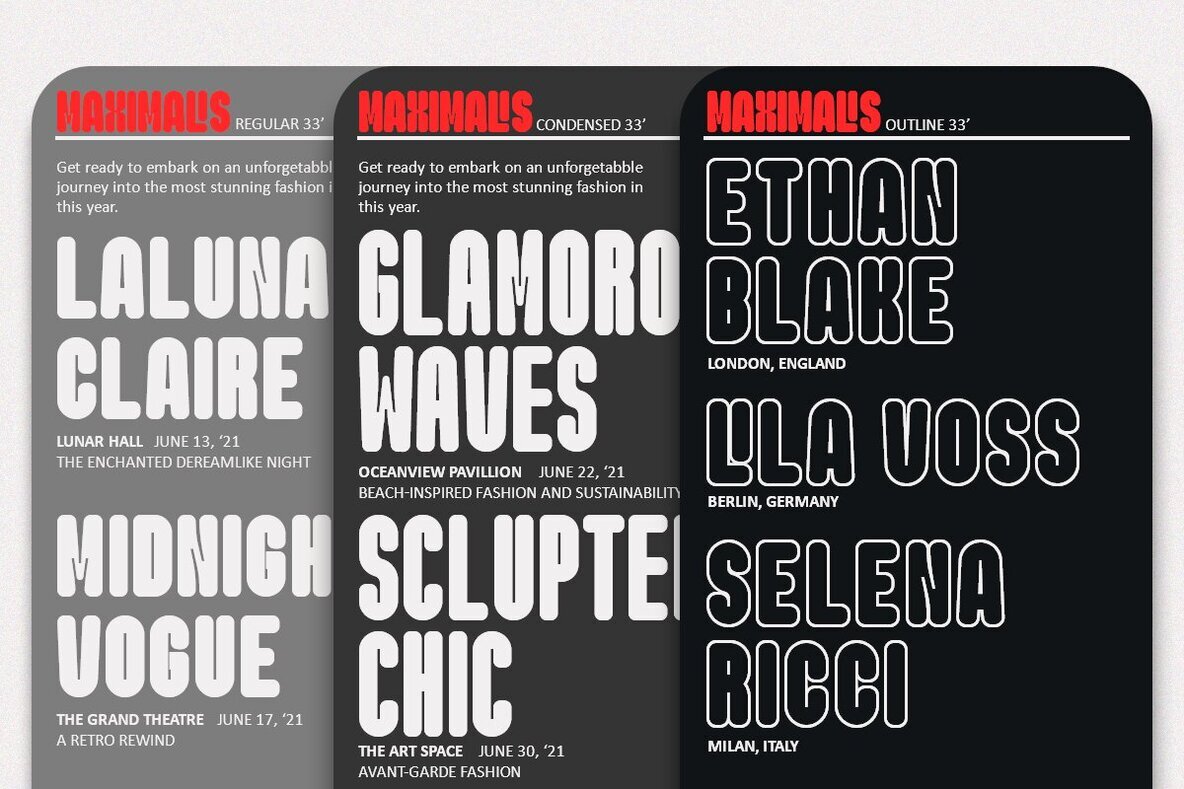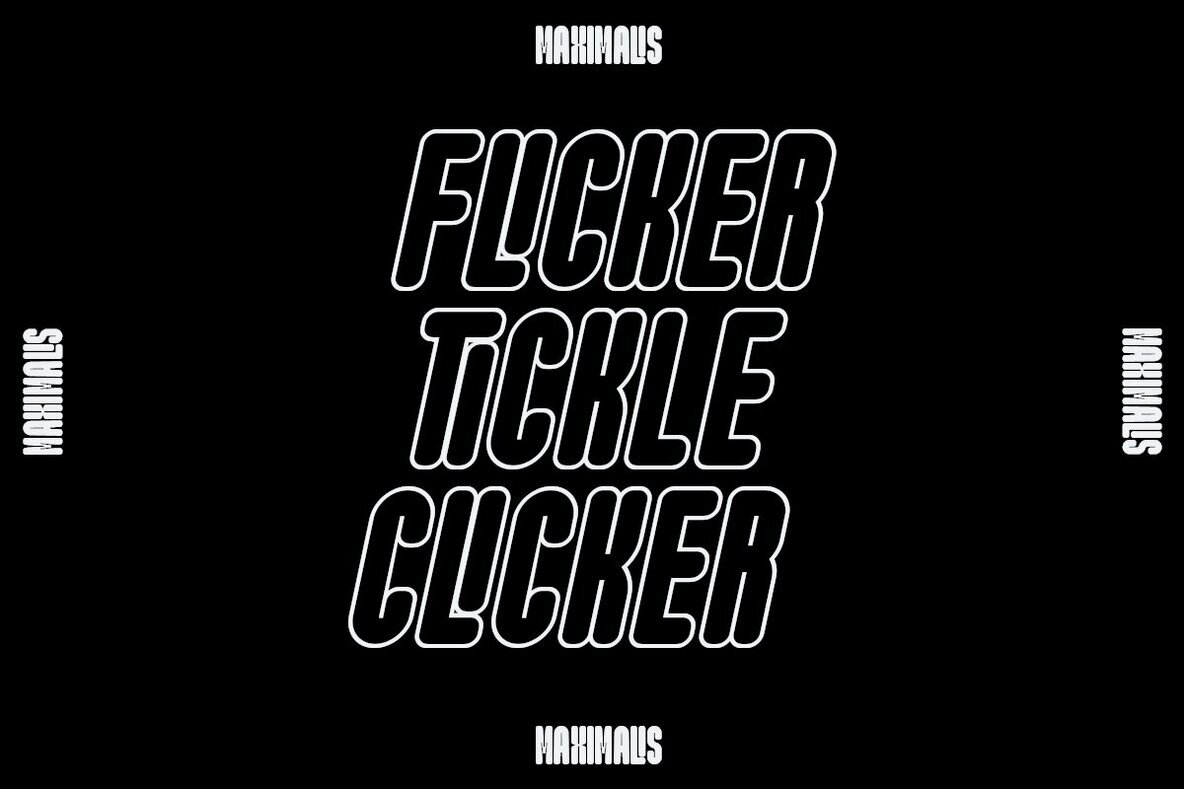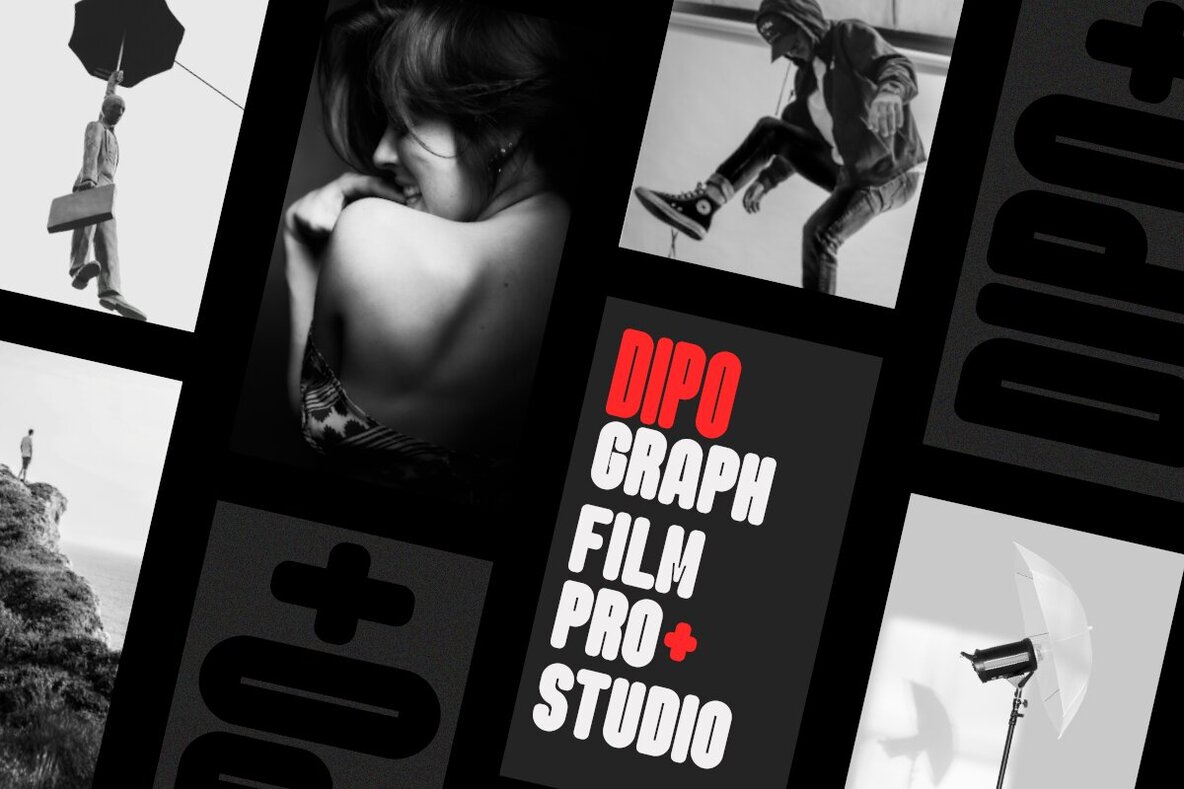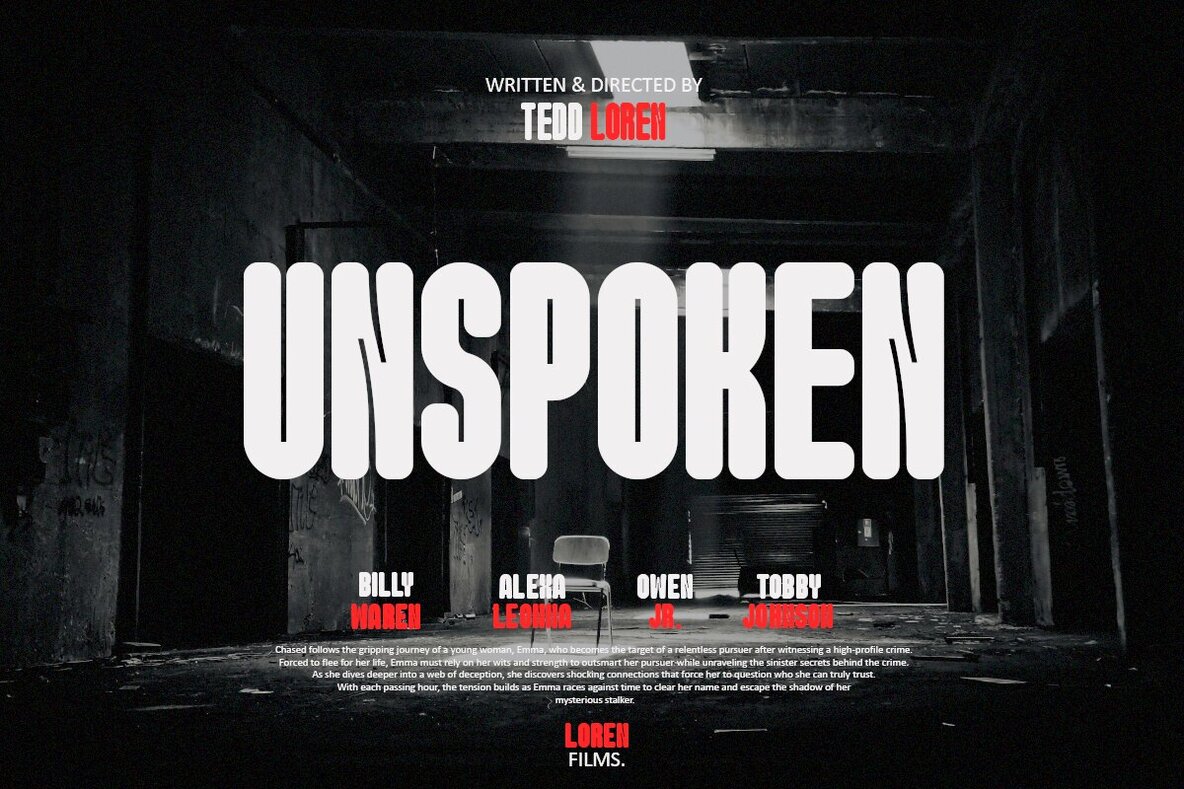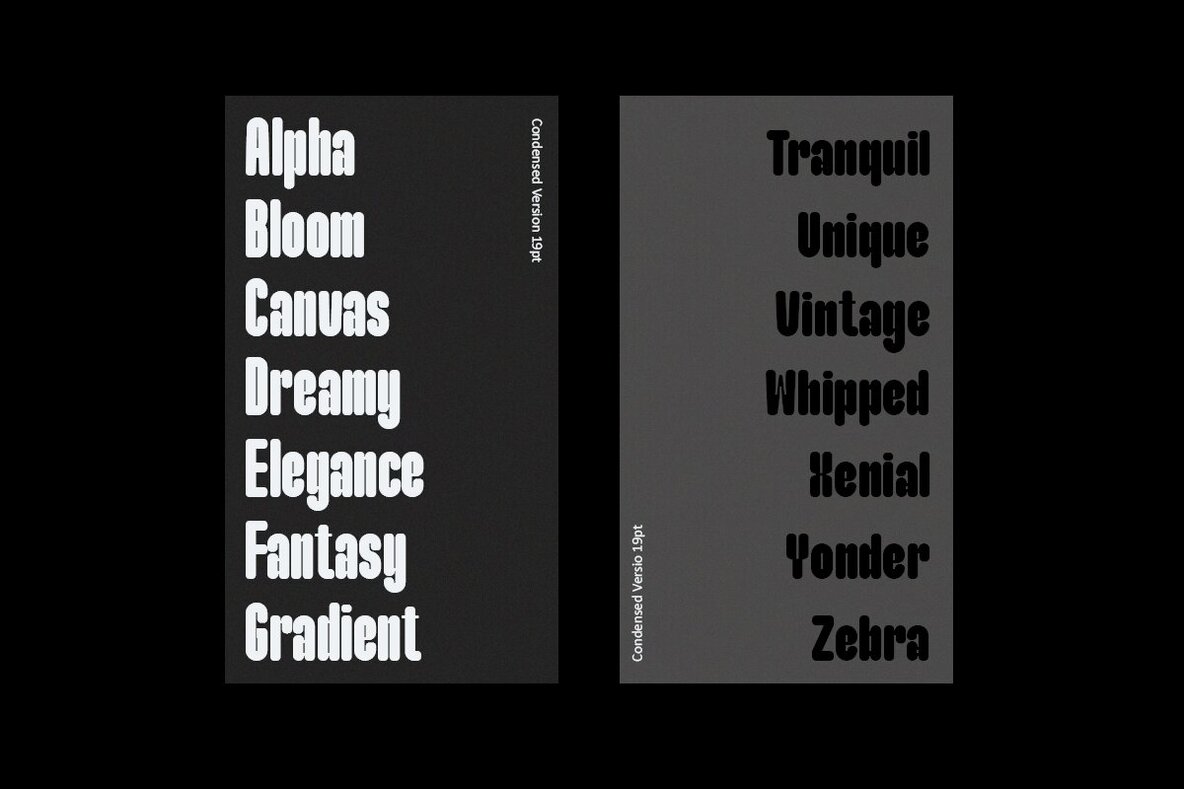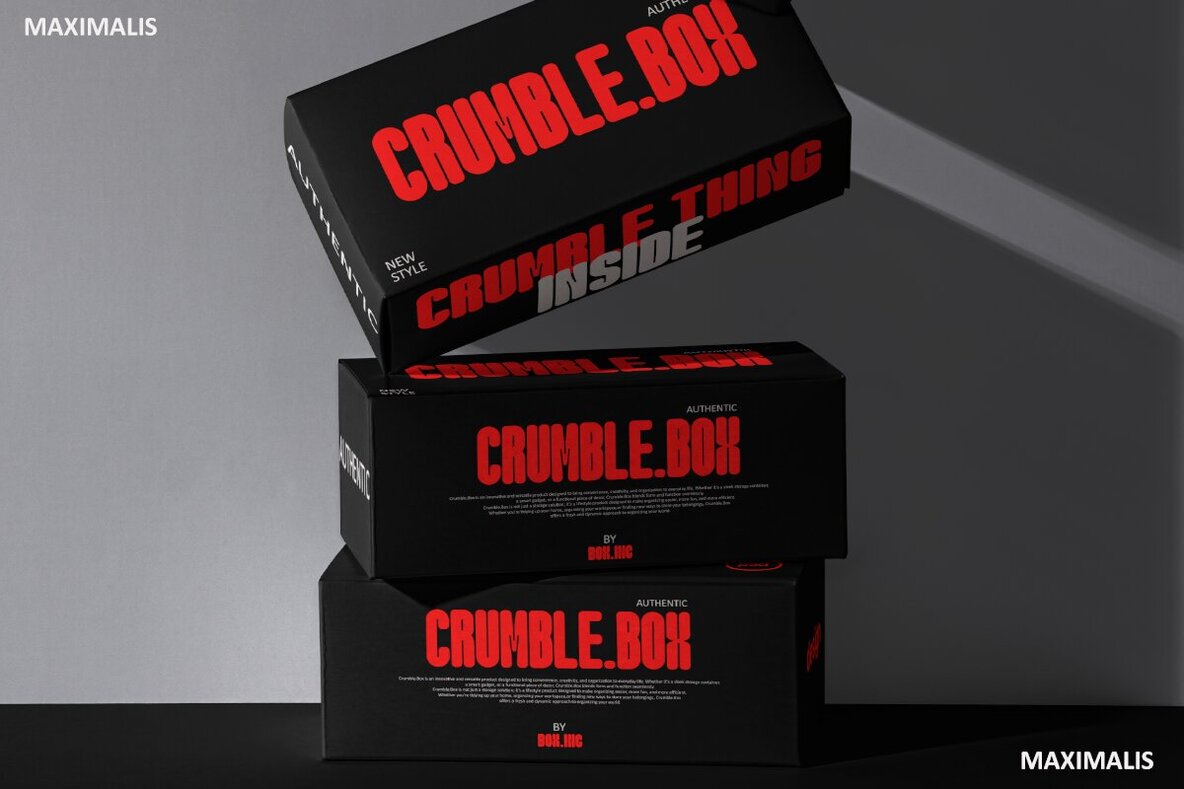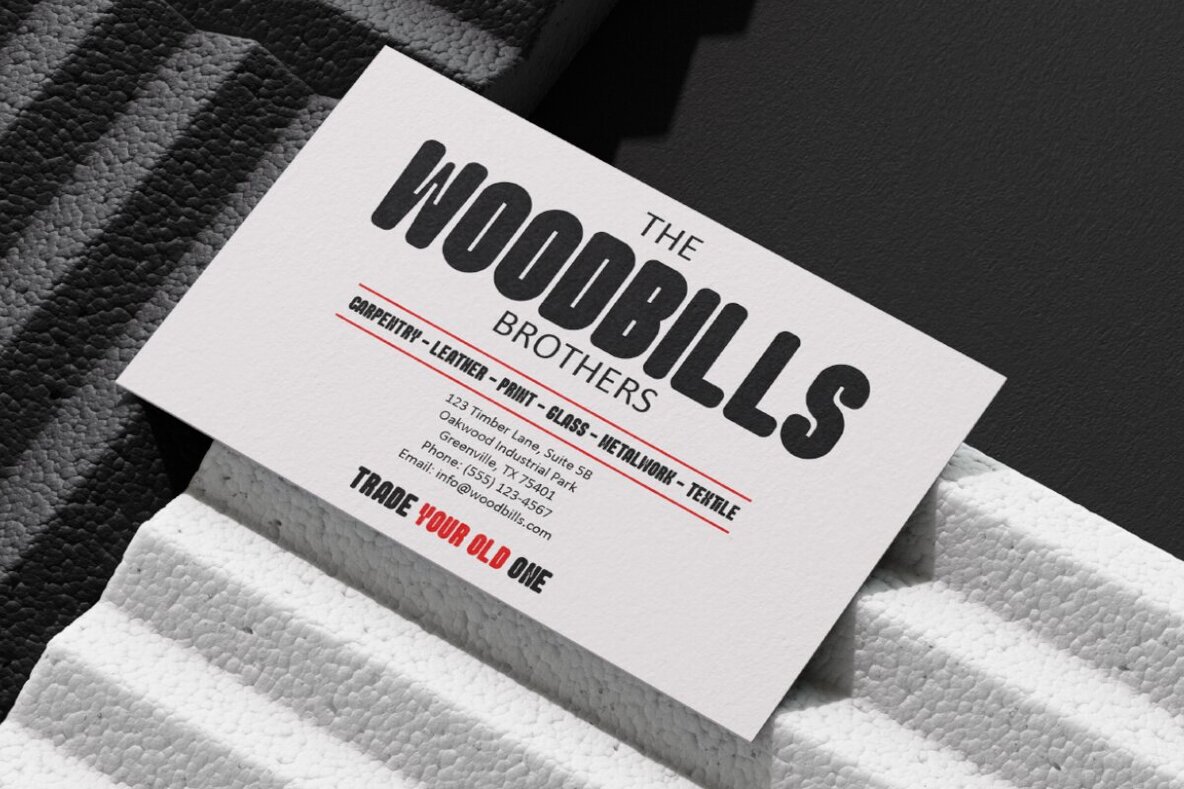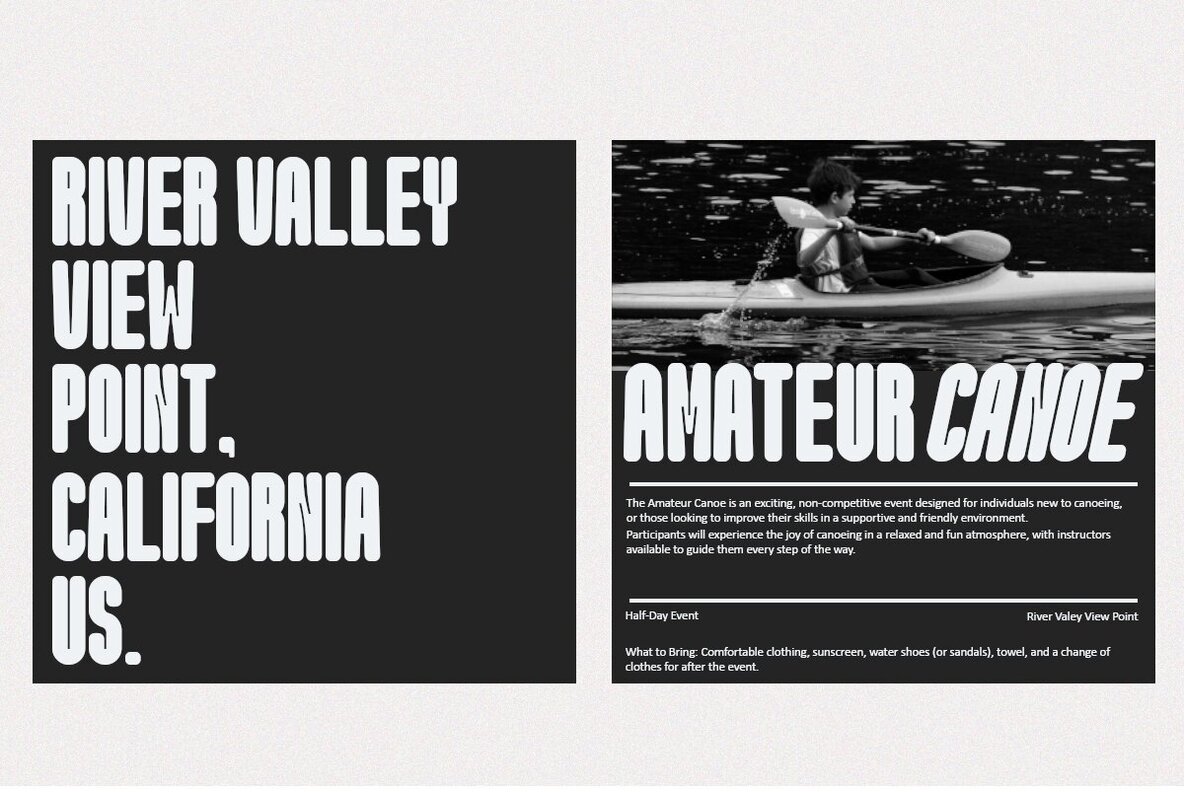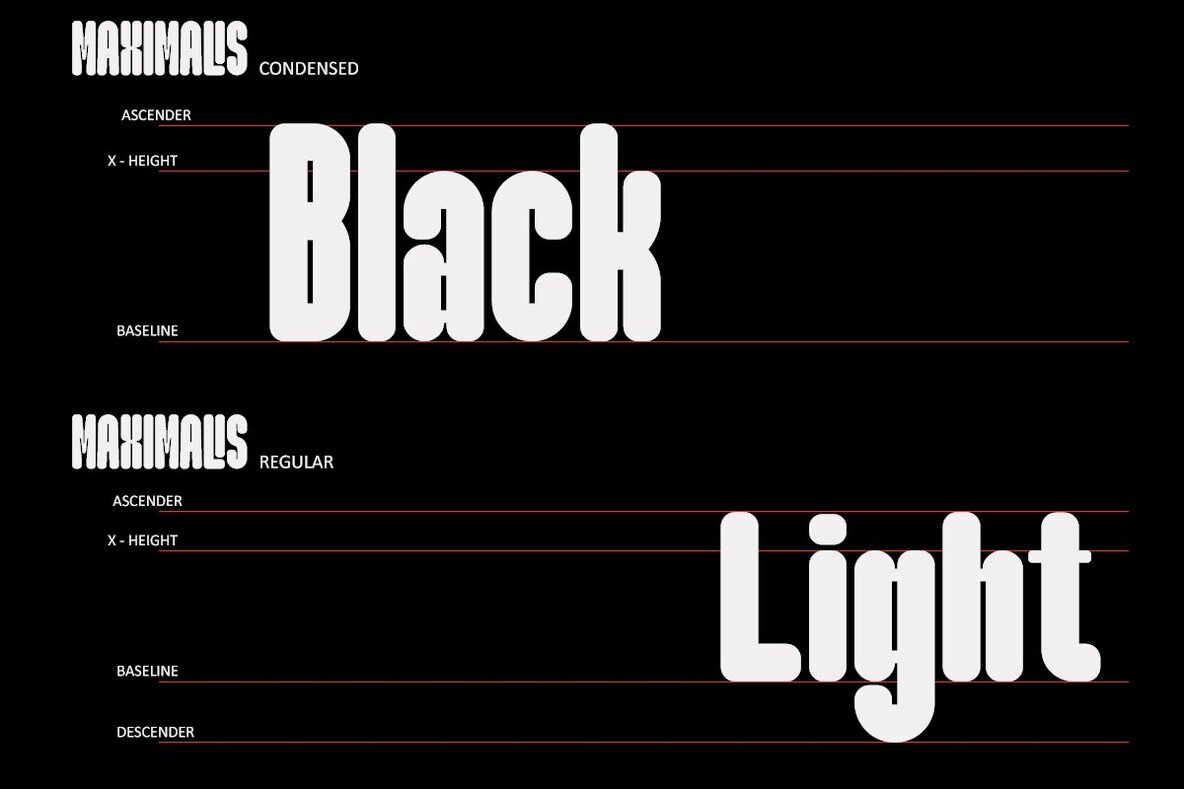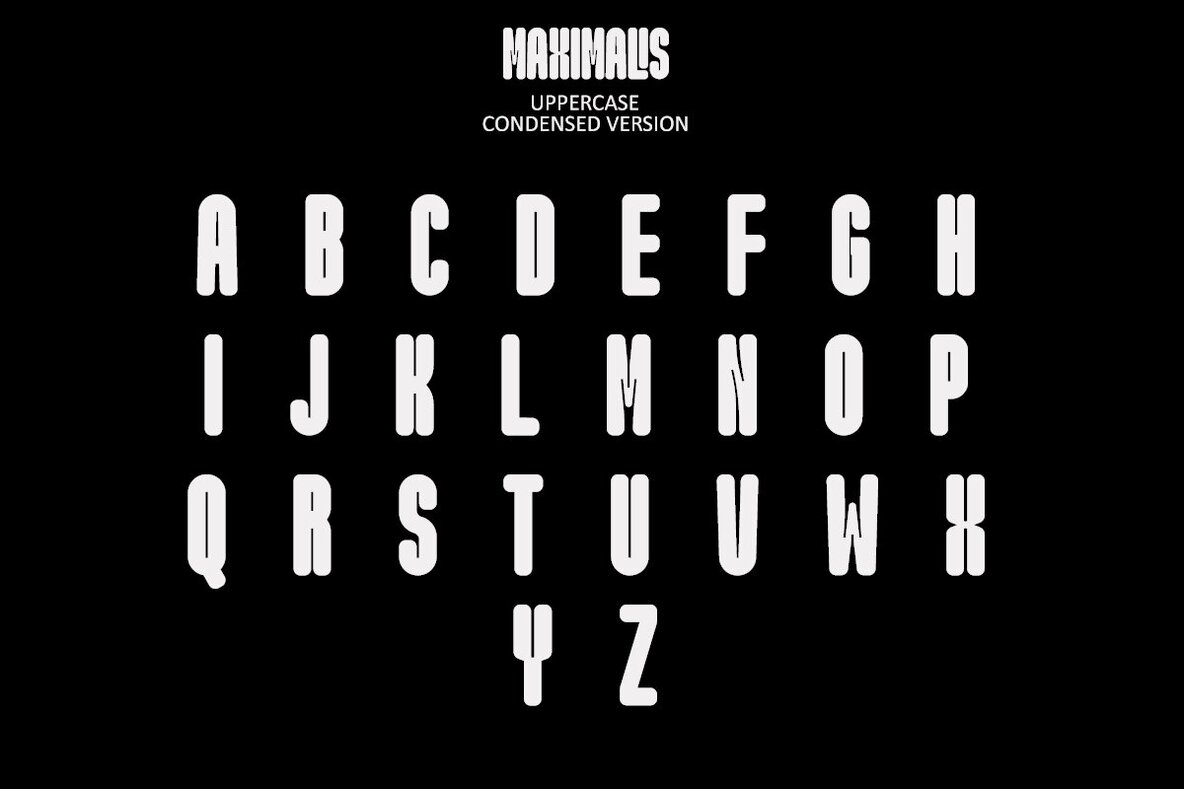
Maximalis Font
Maximalis is a versatile condensed sans-serif typeface designed for bold headlines and easy readability in contemporary settings. Its distinctive shapes make it an ideal display font, offering clarity and expression across various applications. The typeface features a tall x-height and tight line spacing, lending itself well to Latin scripts. Maximalis is perfect for brands, logos, magazines, and films, providing the flexibility to suit a wide range of design needs.
The Maximalis type family includes an array of styles: Regular, Italic, Outline, Outline Italic, Condensed, Condensed Italic, Condensed Outline, and Condensed Italic. These styles enable designers to explore different weights and outlines, adding a modern touch to any project. Maximalis ensures that you have the tools needed to craft visually engaging and contemporary designs across diverse media.